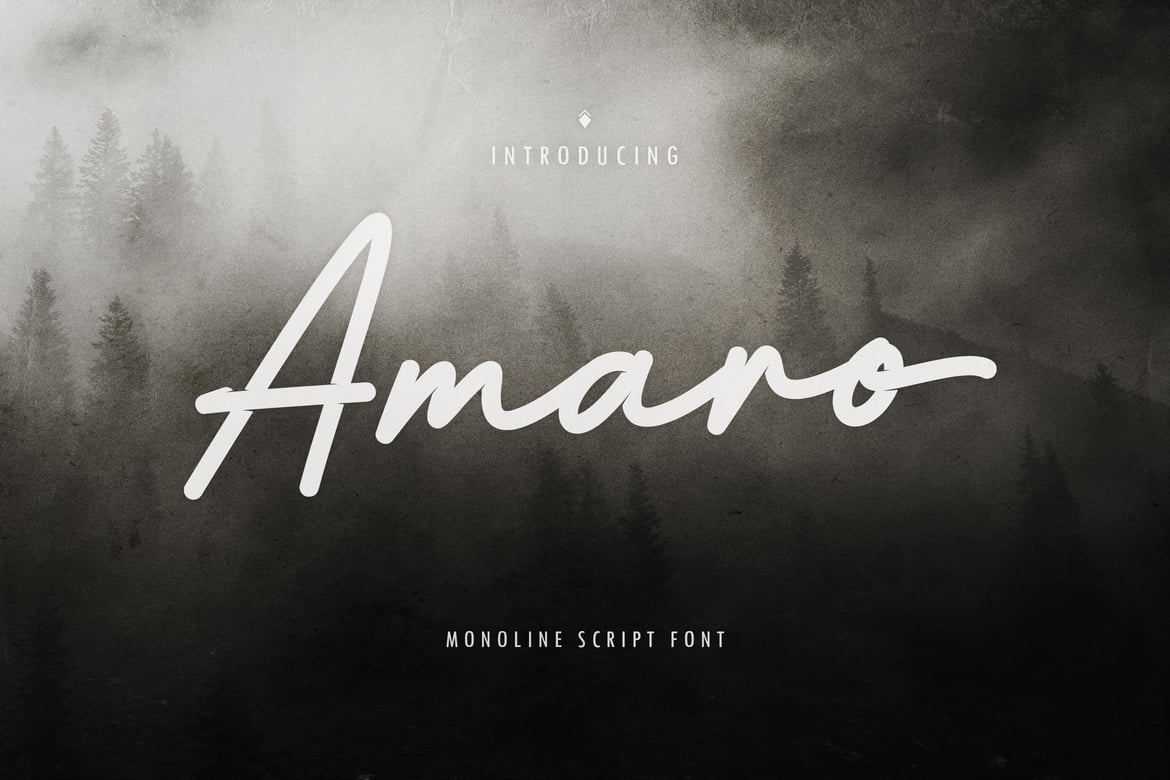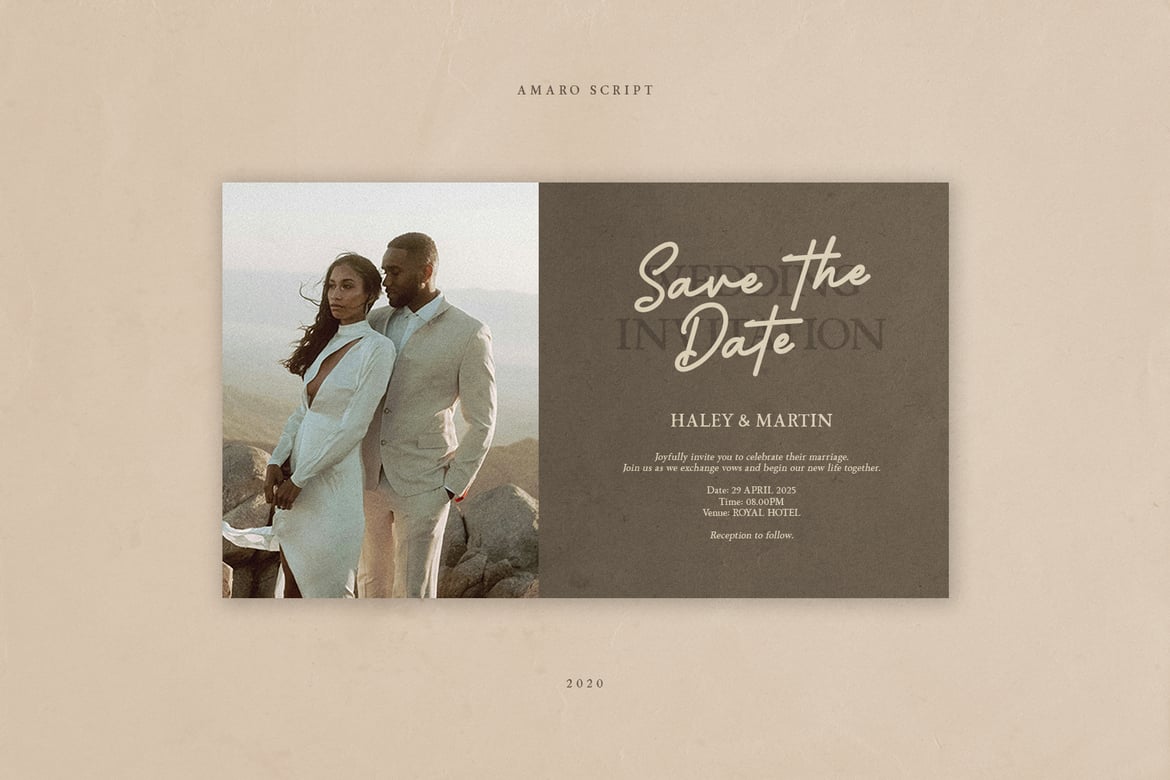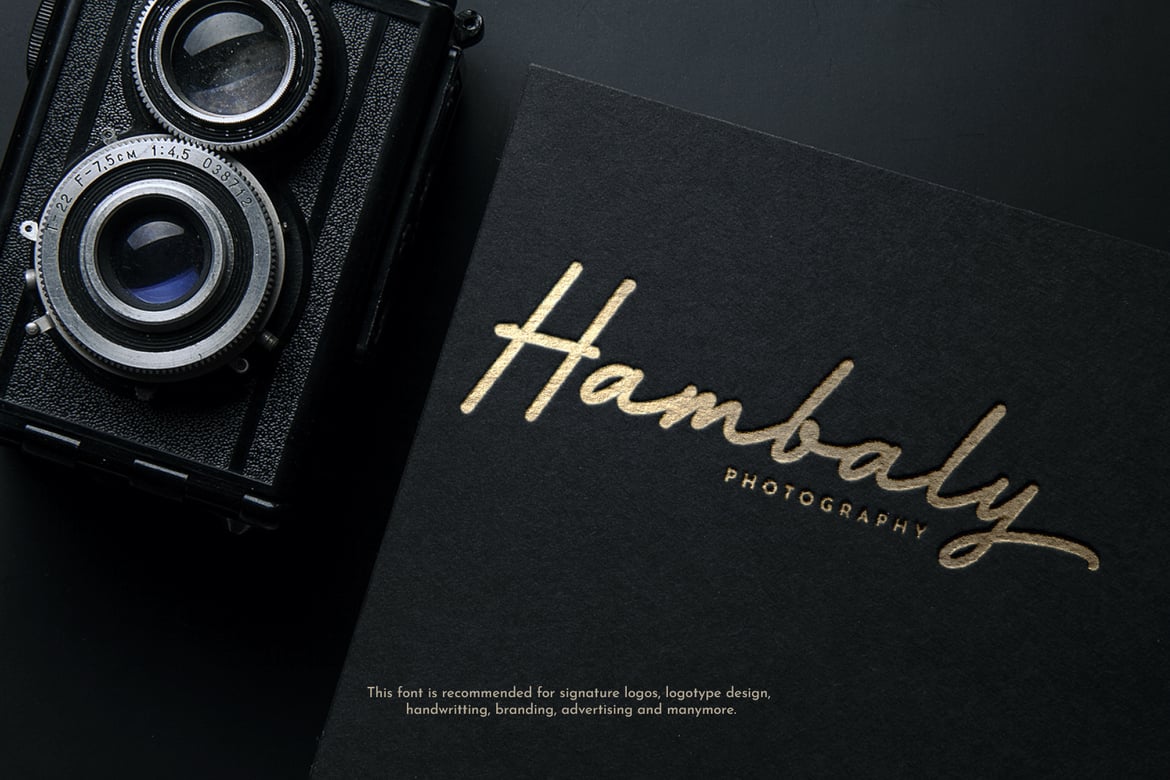
Amaro – Monoline Script Font
Amaro is a modern script font, has an elegant design with a handwritten feel, but with a thicker size. This fonts will make your design look exclusive, simple and authentic.
It offers support for all English characters, some opentype features (alternate, contextual alt, ligature and swashes), several characters in different languages and standard punctuation included.